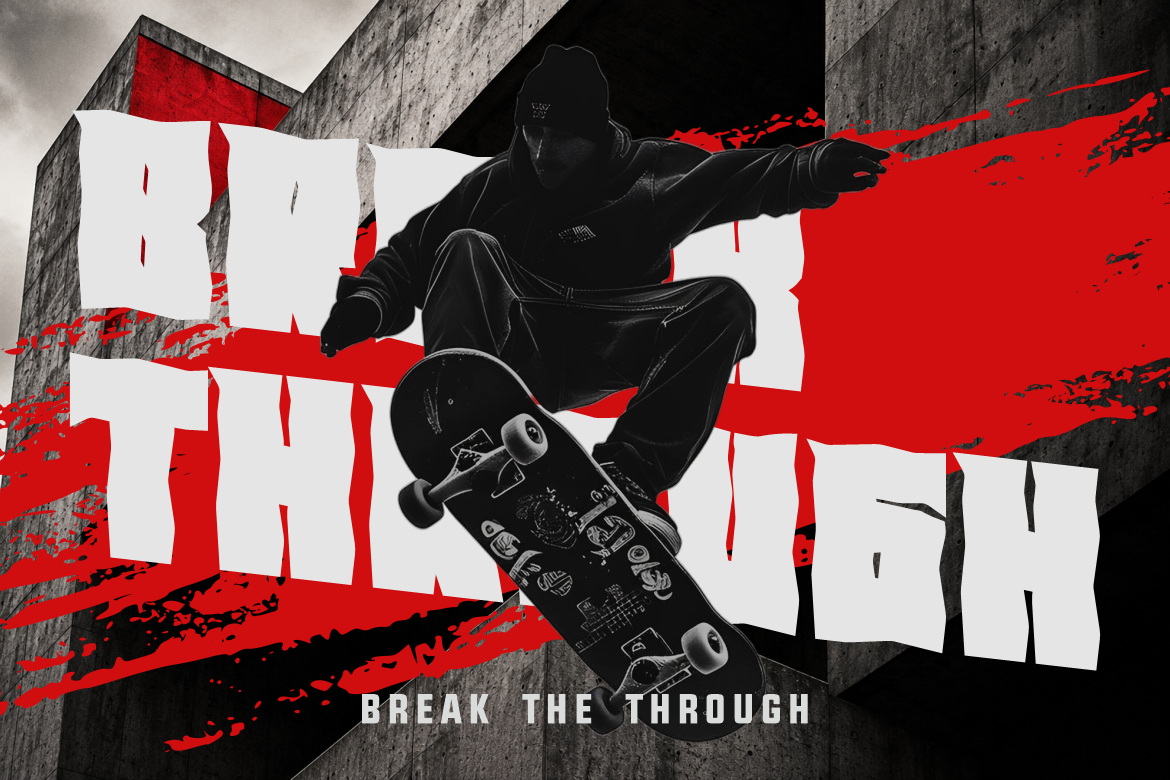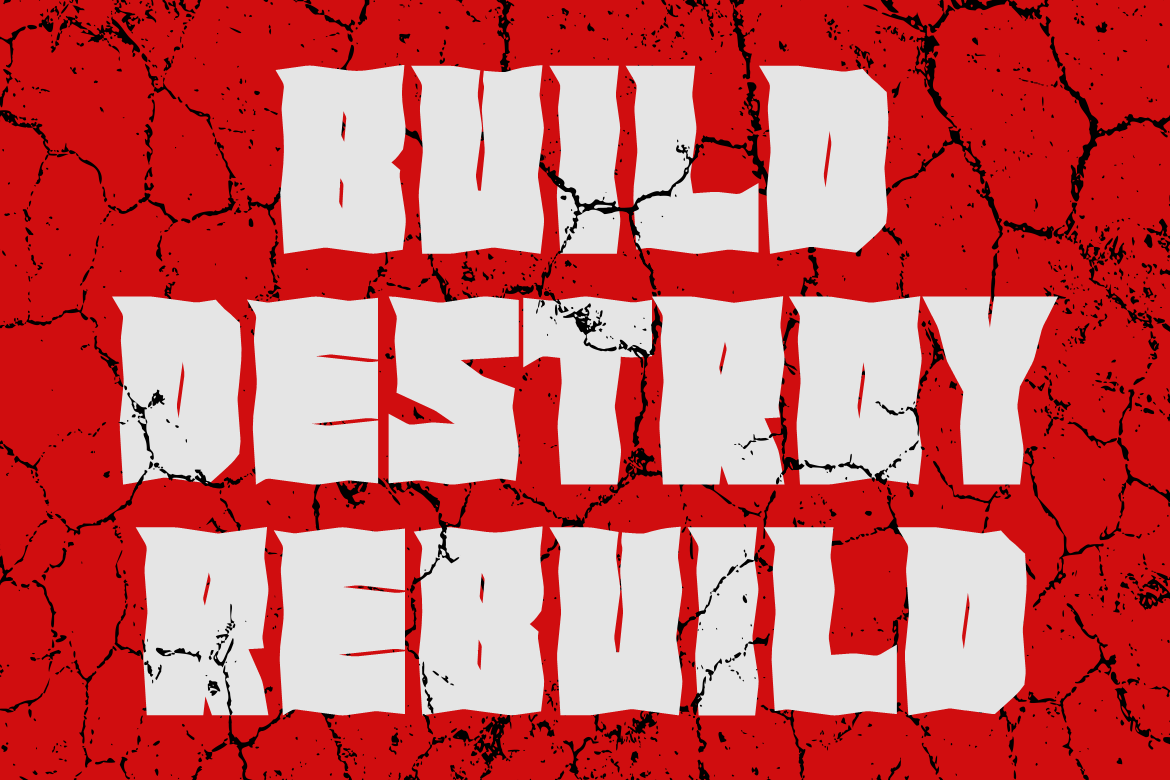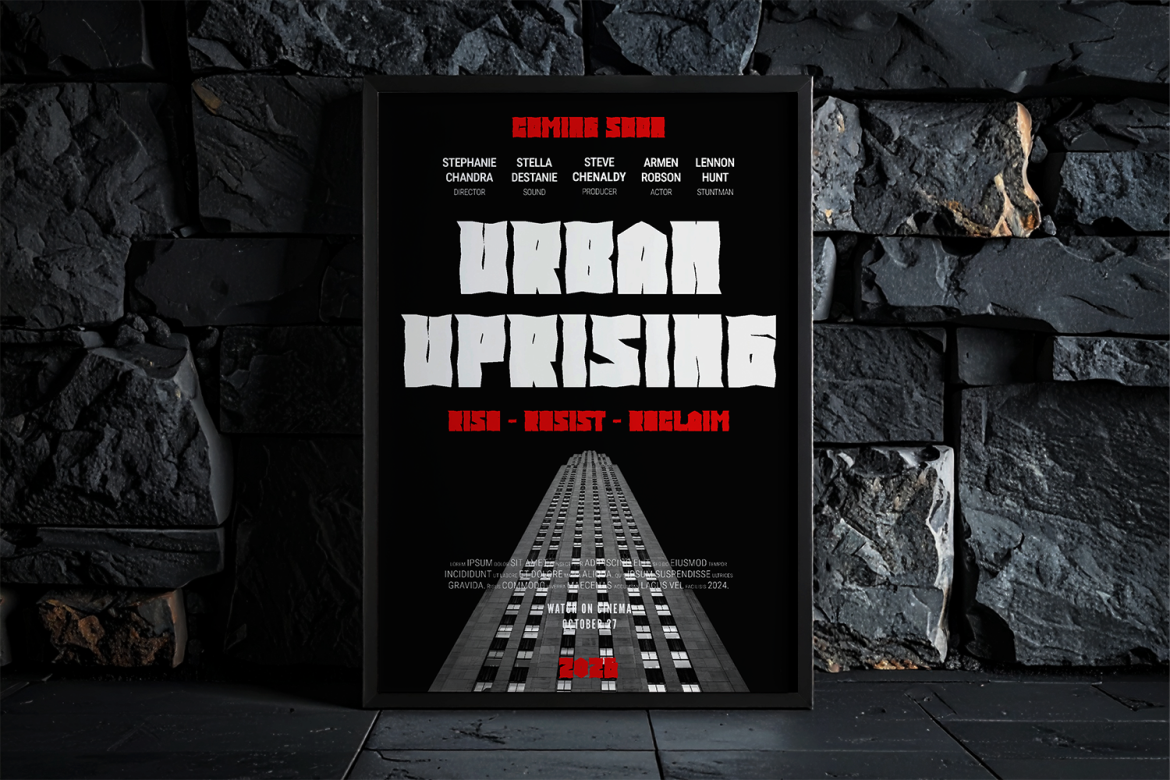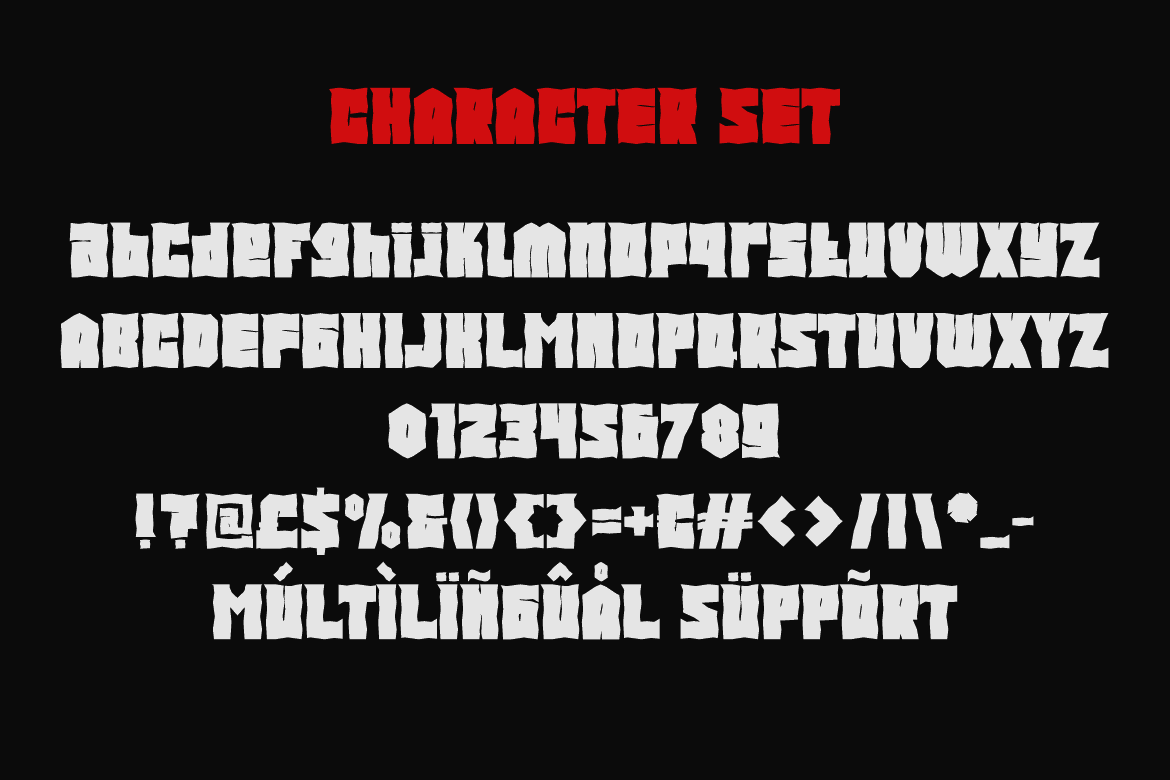
Brutalist Block Rough Display Font brings massive letterforms, uneven cuts, and rigid shapes with commanding visual weight. Its heavy structure creates an aggressive rhythm while irregular edges keep every word expressive and energetic. This character works strongly as a sport font, skate font, urban font, and architecture font. It suits logo systems, headline layouts, poster campaigns, advertising, business branding, and event titles. The forceful proportions also support gym branding, fitness campaigns, boxing promotions, and action-focused creative projects.
Its raw construction fits businesses that need confidence, strength, movement, and a rebellious urban identity. Designers can use it as a fitness font, gym font, boxing font, racing font, motorcycle font, or skateboarding font. It also works as a street font for youth events, music promotions, creative studios, and independent brands. Strong silhouettes make short names memorable across packaging, labels, stickers, signs, magazine titles, and book covers. The same attitude also suits architecture studios, construction businesses, automotive projects, and industrial campaigns.
Brutalist Block Rough Display Font extends beyond sport and street branding into entertainment and commercial communication. Use it as a movie font, film font, game font, music font, festival font, or event font. Its dramatic presence supports action titles, urban stories, competition graphics, and energetic advertising concepts. It can also serve as a product font, packaging font, poster font, logo font, branding font, business font, magazine font, book font, sticker font, and advertising font. The result feels forceful, direct, masculine, and built for attention.